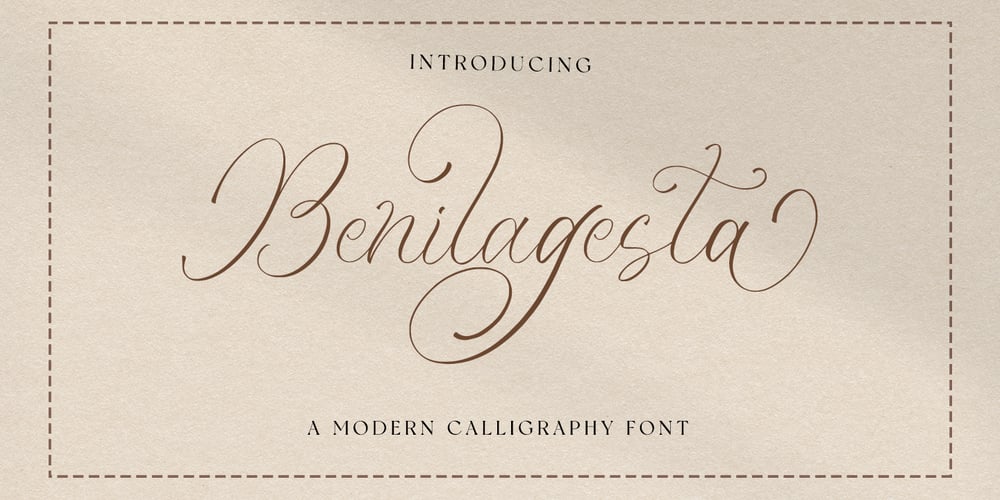
Benilagesta
Benilagesta font
Benilagesta Font Family was designed by Novia Himatunnisa and published by Nissa Nana. Benilagesta contains 1 styles and family package options. Benilagesta is a beautiful and delicate handwritten font with a unique feel and a stunning impact. It will add a luxury spark to any design project that you wish to create!